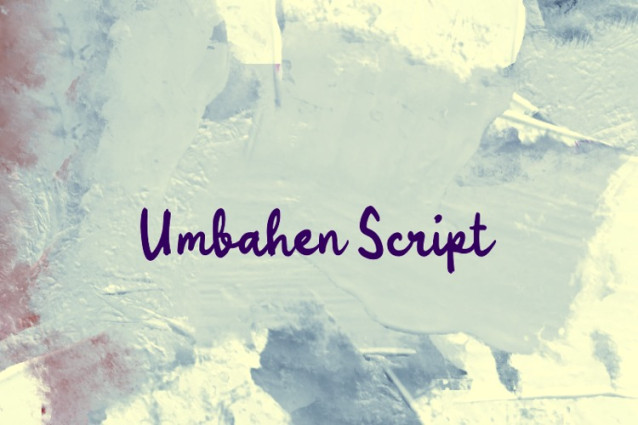
Umbahen Script Font
Umbahen Script Font is a simple and friendly handwritten font. Its natural and unique style makes it incredibly fitting to a large pool of designs. The only limit is your imagination!